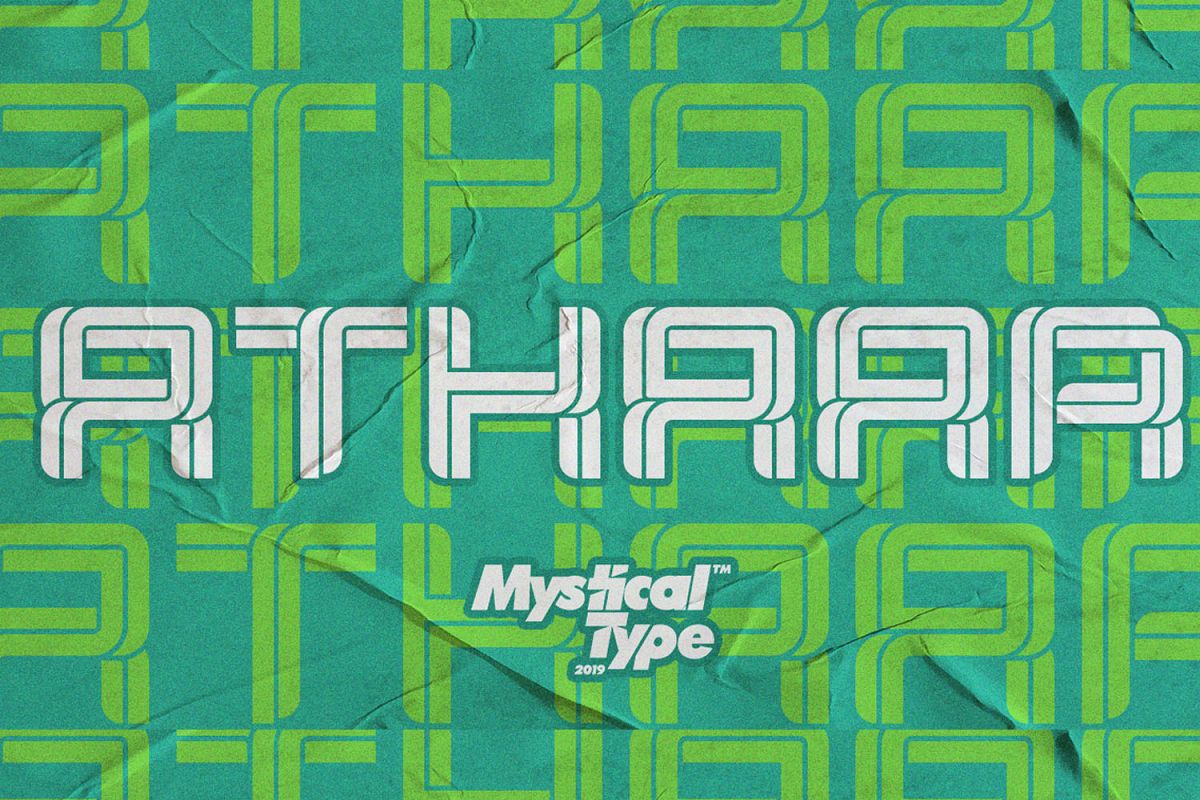
Athaar
Athaar is a bold, modern sports font with dramatic movements and a strong feel for your latest project that requires a modern sports look. It is perfect for branding projects, logos, wedding designs, social media posts, advertisements, product packaging, product design, labels, photography, watermarks, invitations, stationery, and any project that requires a modern sport style.
Athaar comes with uppercase, lowercase letters, numbers, punctuation, and many variations of each character, including OpenType alternatives and general binders to allow you to customize your design.